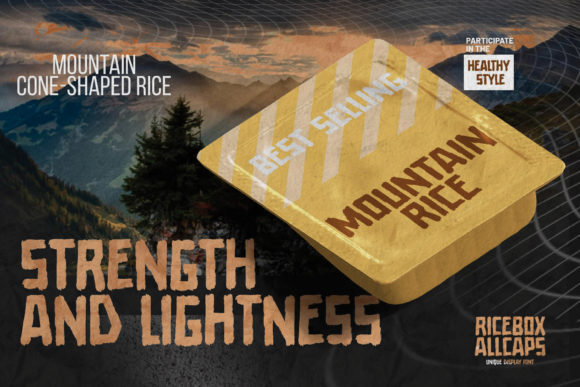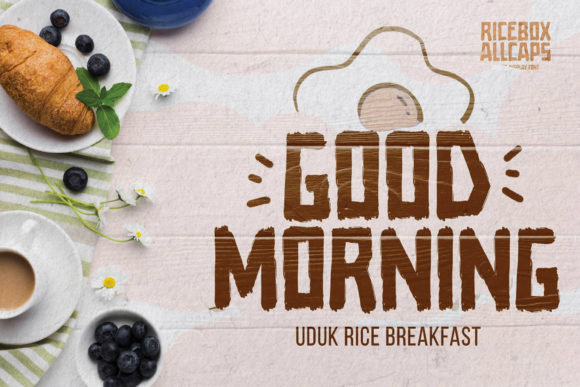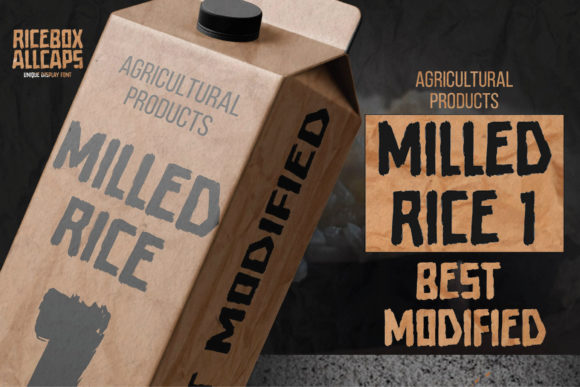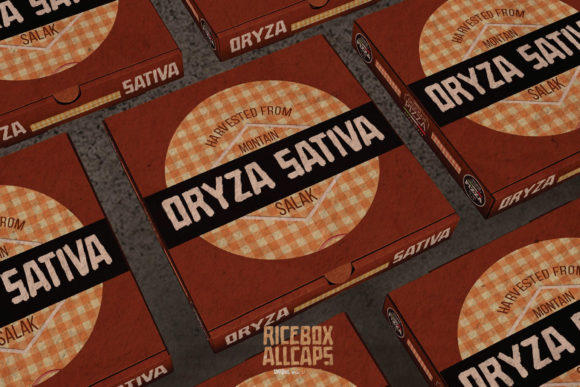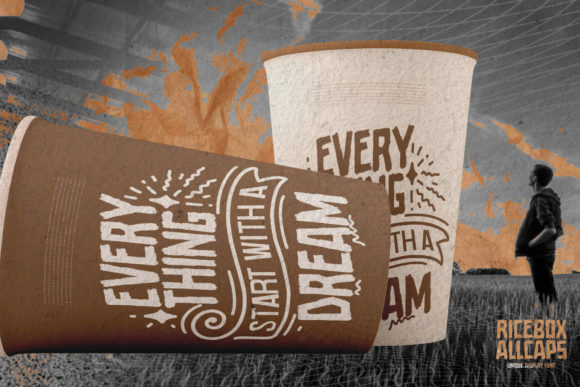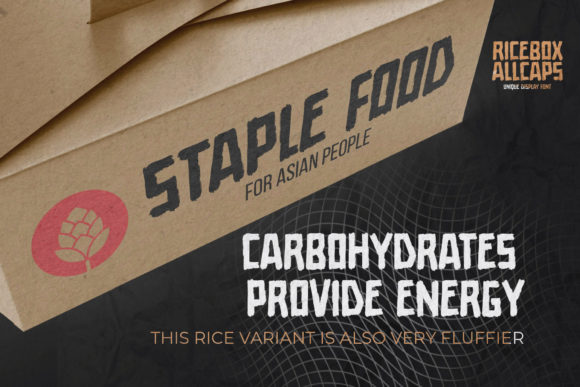
Introduction to Ricebox Allcaps Font
Ricebox Allcaps is a robotic styled and squared lettered display font.
It has a rough, brushed display font It will look stunning on any poster, flyer or print.
Key Features of Ricebox Allcaps Font